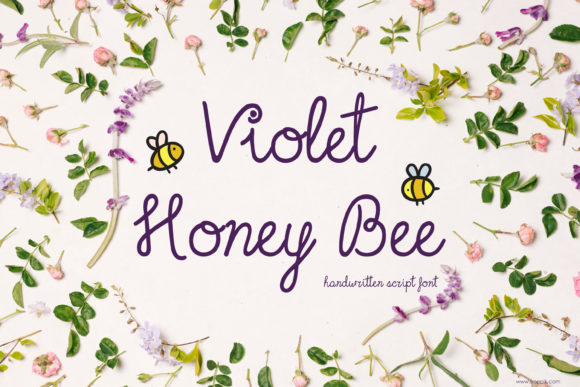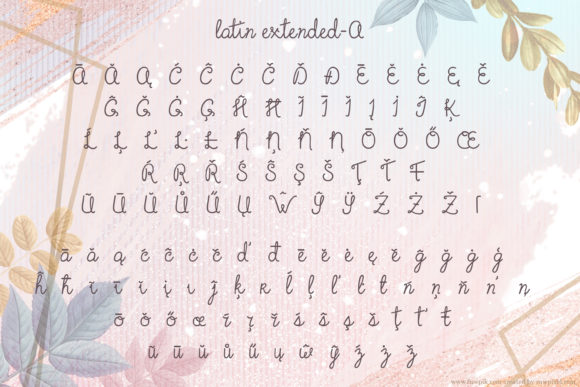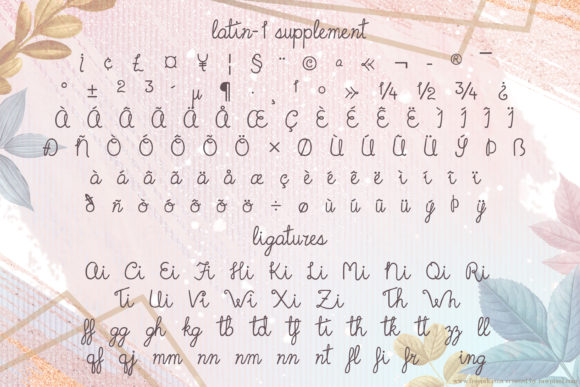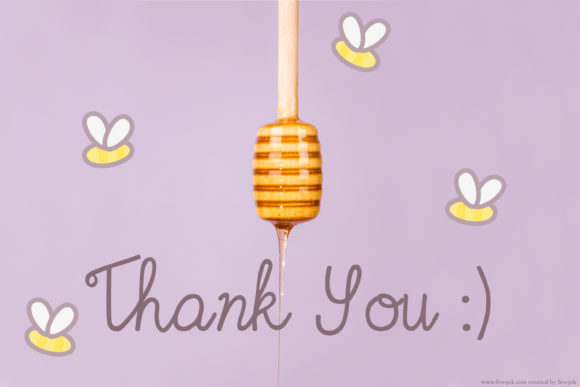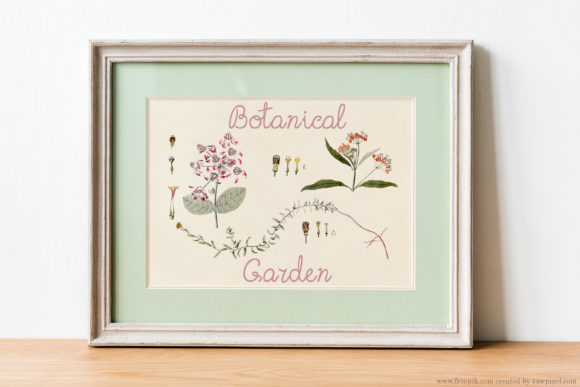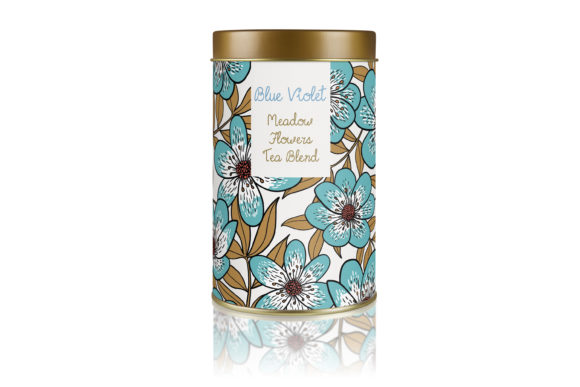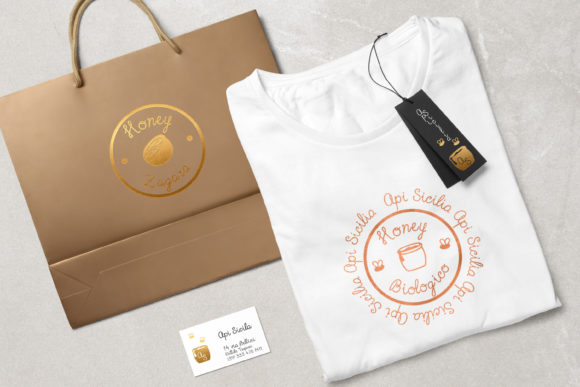
About Violet Honey Bee Font
Violet Honey Bee is a round lettered handwritten font, with sweet little twirls. It is PUA encoded which means you can access all of the glyphs and swashes with ease!